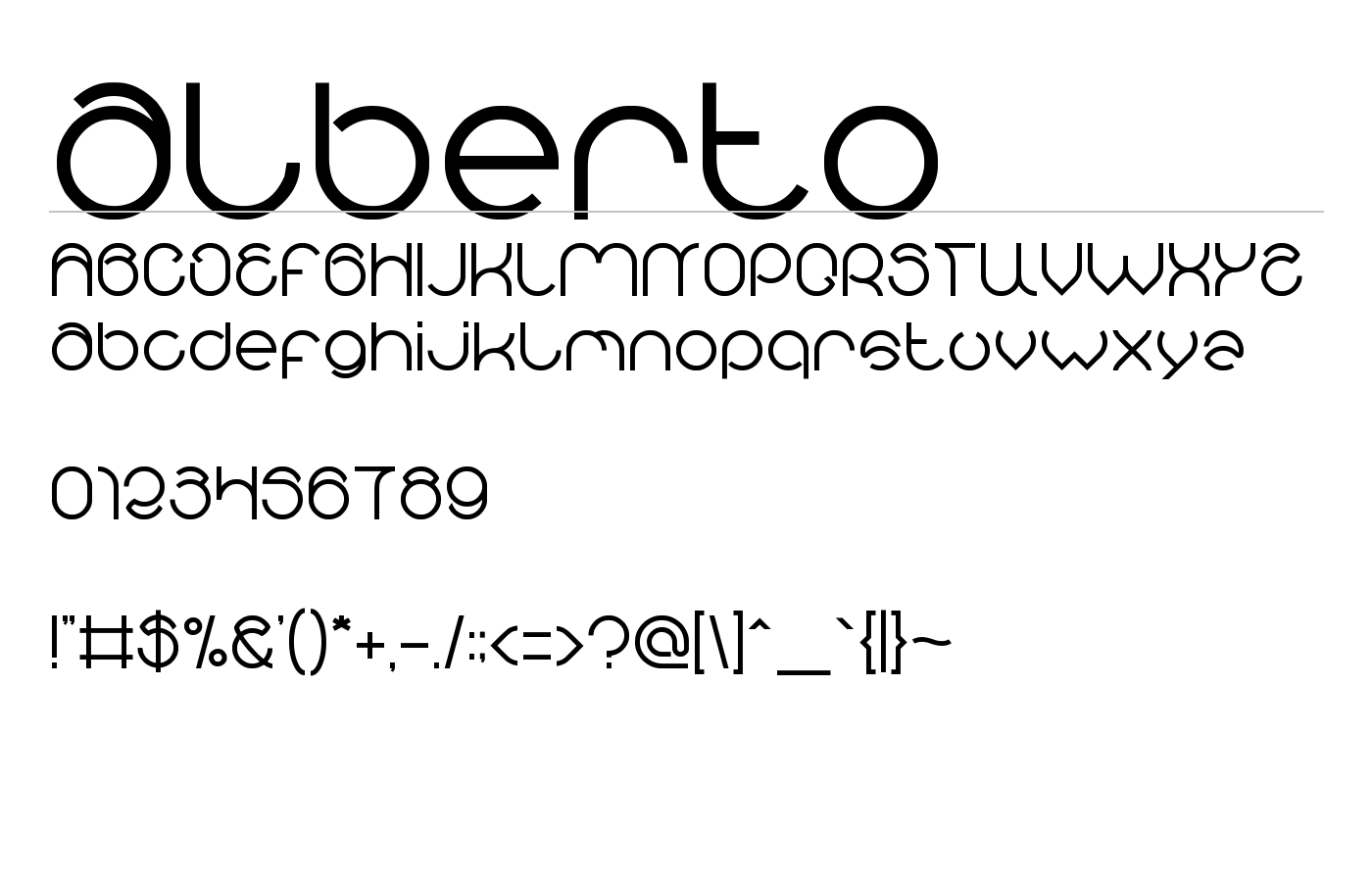
Alberto is a modern, geometric sans serif font characterized by its thin, clean lines and unique curved terminals that give it a futuristic and stylish look. With its narrow width, high x-height, and consistent stroke weight, it works well for contemporary branding, editorial headlines, and digital interfaces where a sleek, sophisticated aesthetic is desired. This font’s innovative design makes it ideal for creative projects that aim to stand out with a minimal yet distinctive personality.
alberto Font
About alberto Font